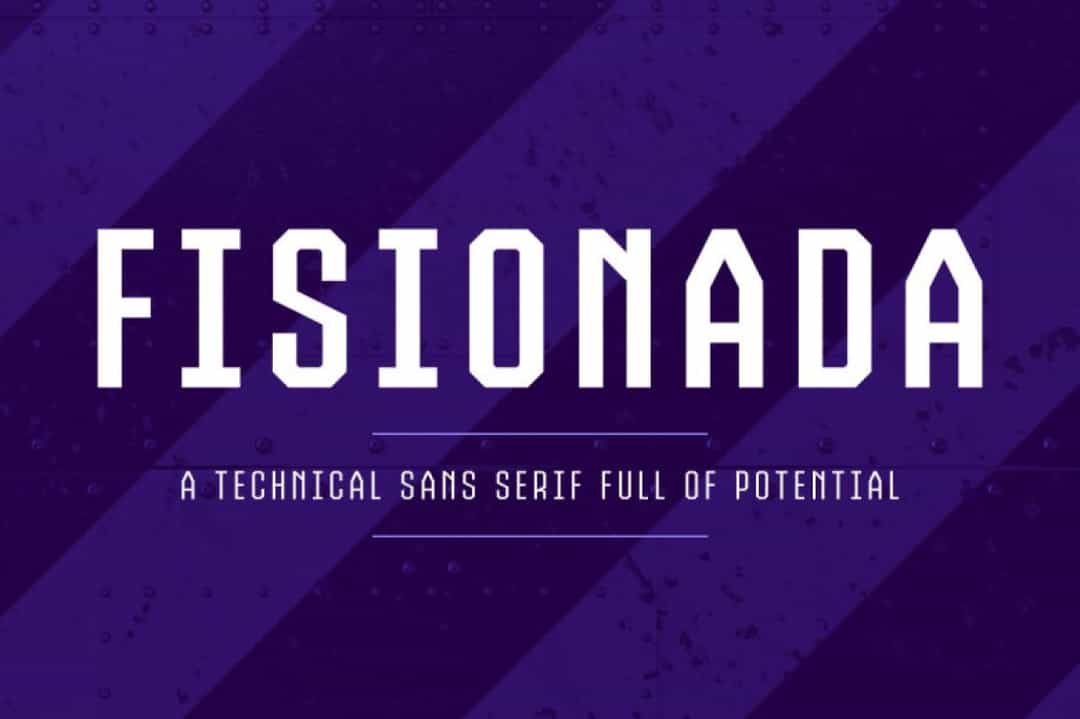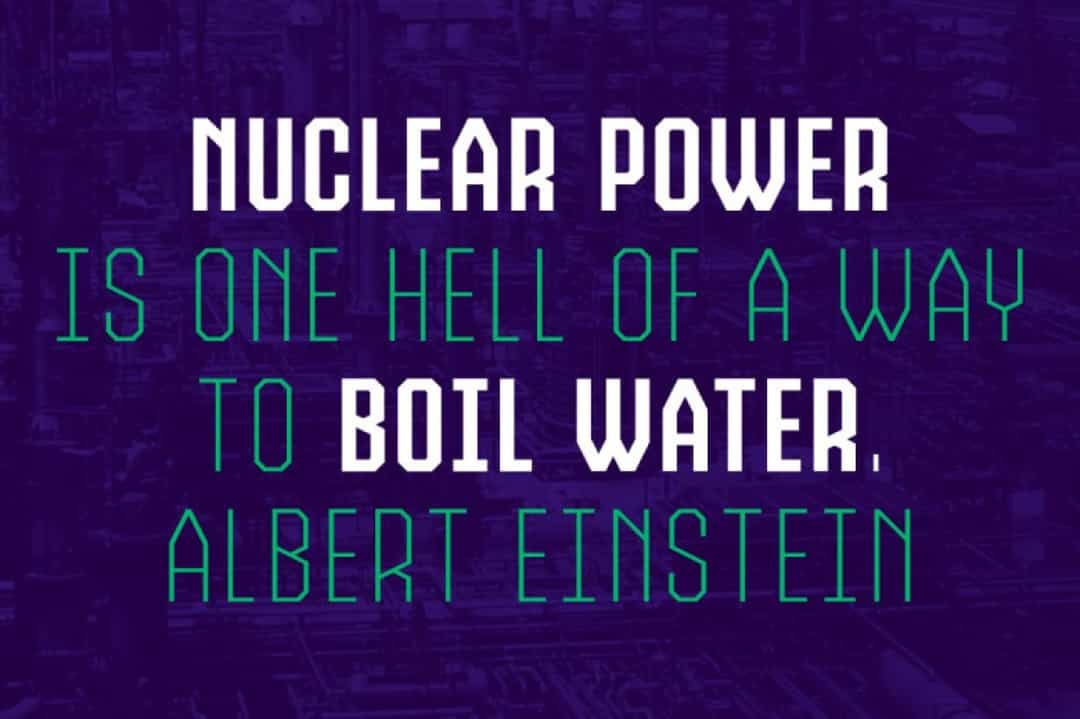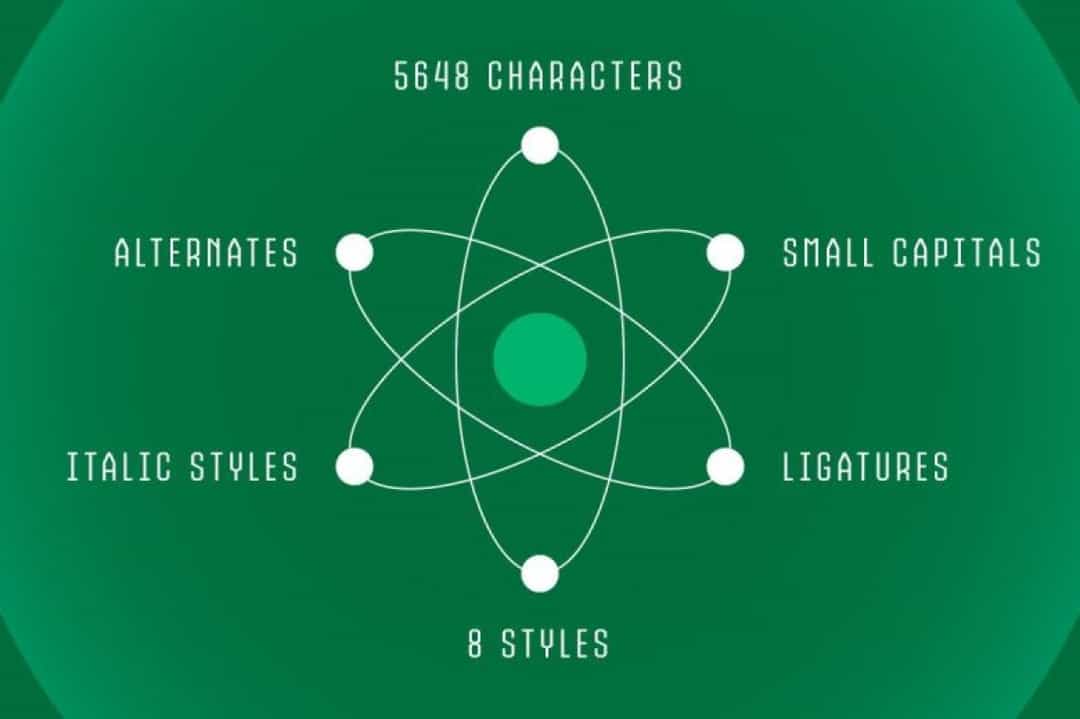
Pablo Balcells created the Fisionada font family for use at Graviton Font Foundry by 2023. It features sharp lines and technical aesthetics in a condensed style which saves space while its geometric design makes it appealing for futuristic logos, video games and sci-fi material displays. Fisionada font was intended to serve both as headlines as well as short text blocks.